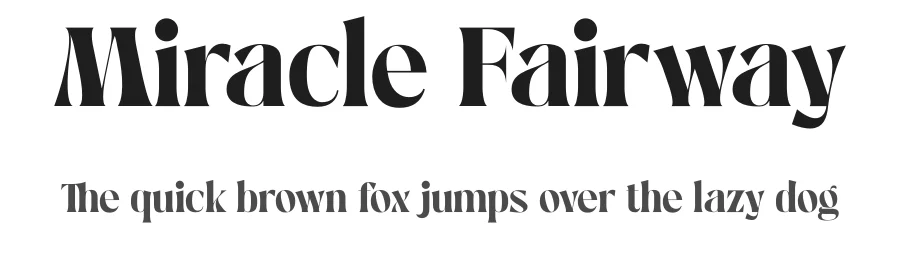
About Classicismo Font
Classicismo Specifications
| Font Family | Classicismo |
| Designer | Wahyu Eka Prasetya, Andhika Pradana |
Classicismo supports 104 languages.
Classicismo Font is a decorative font that shines as a display or heading face. Pair it with a clean sans-serif or serif font for body text β the contrast creates a clear hierarchy while the two styles stay balanced and easy to read.
Classicismo Font
by Ikiiko Type